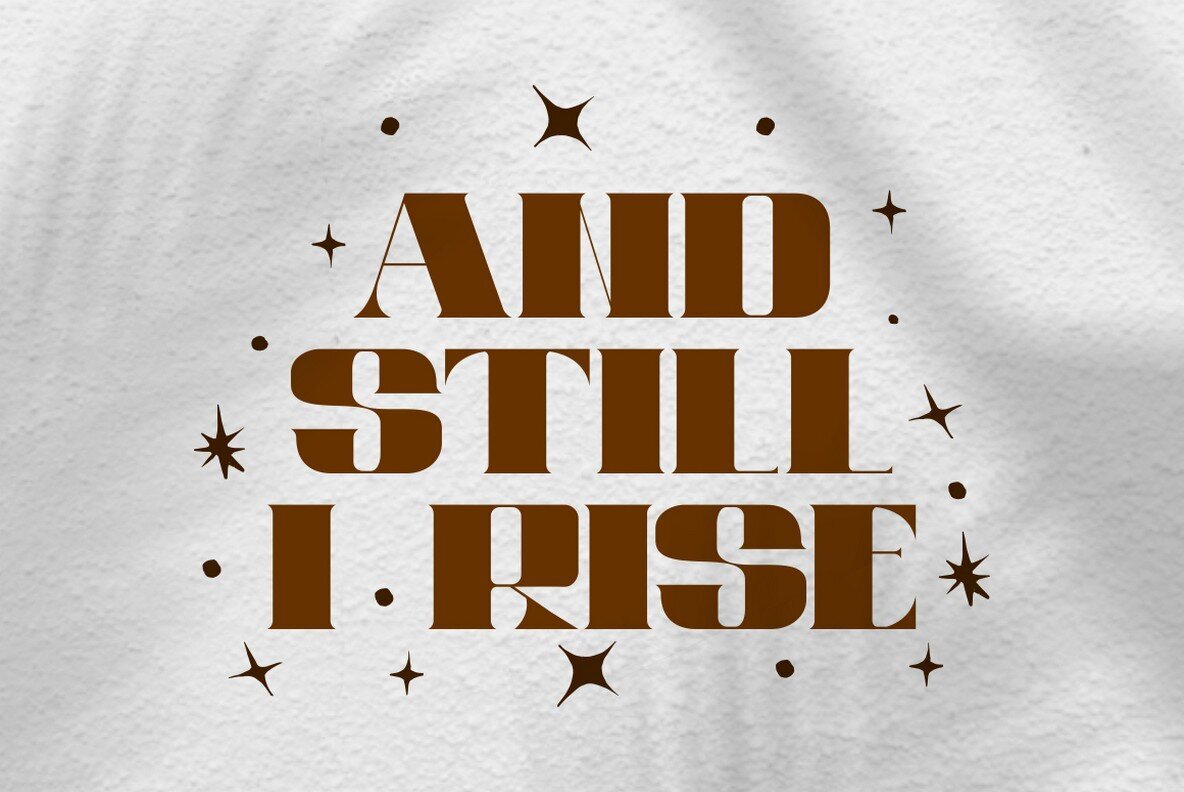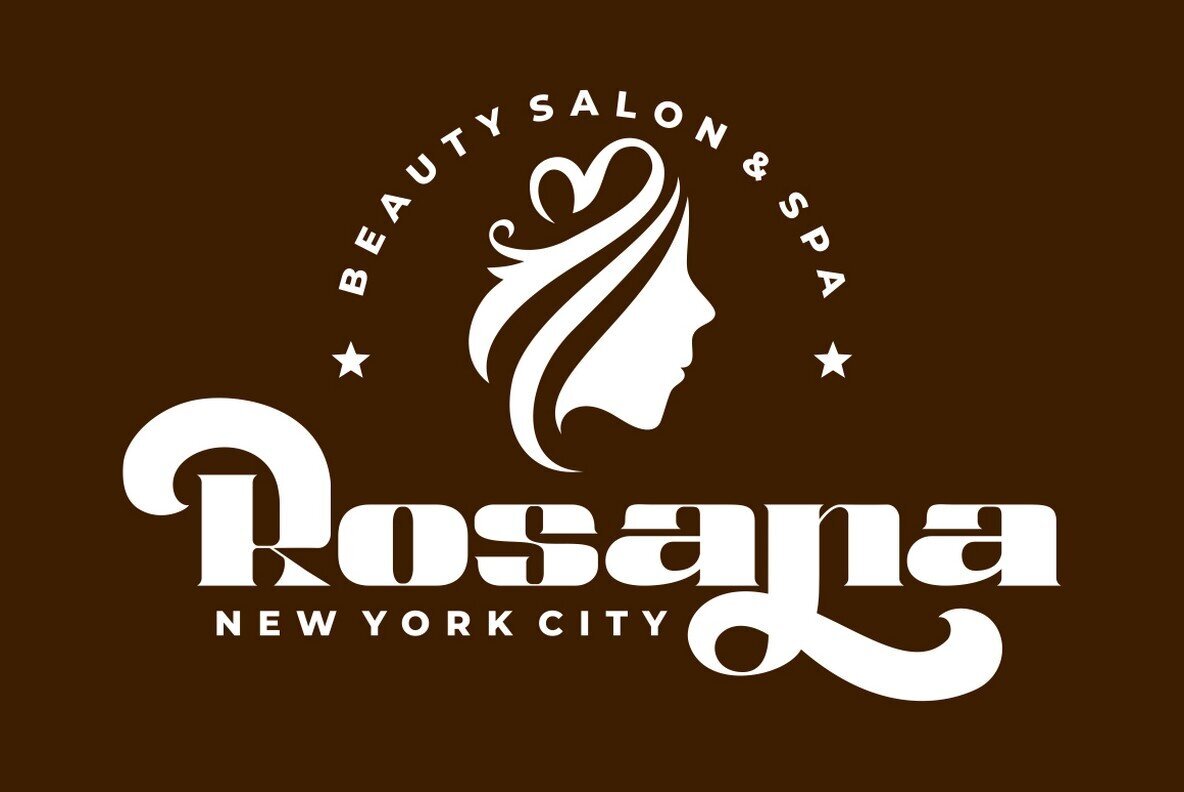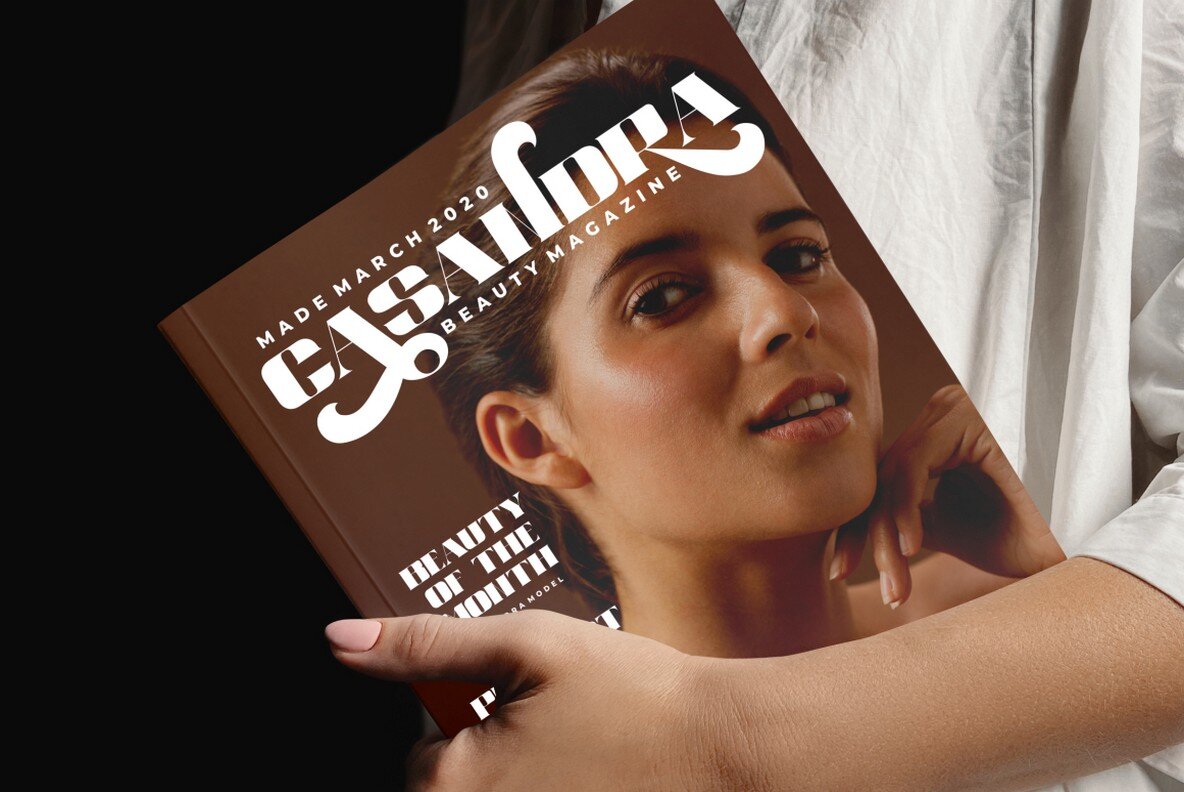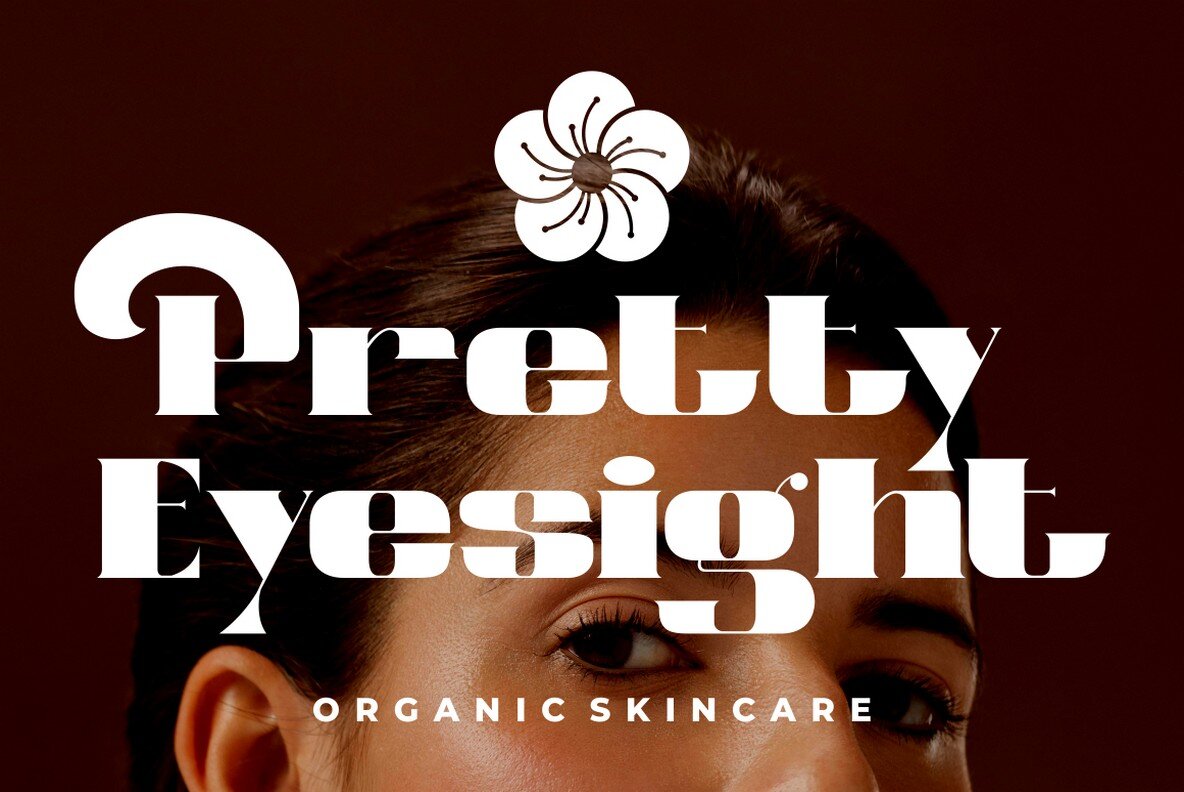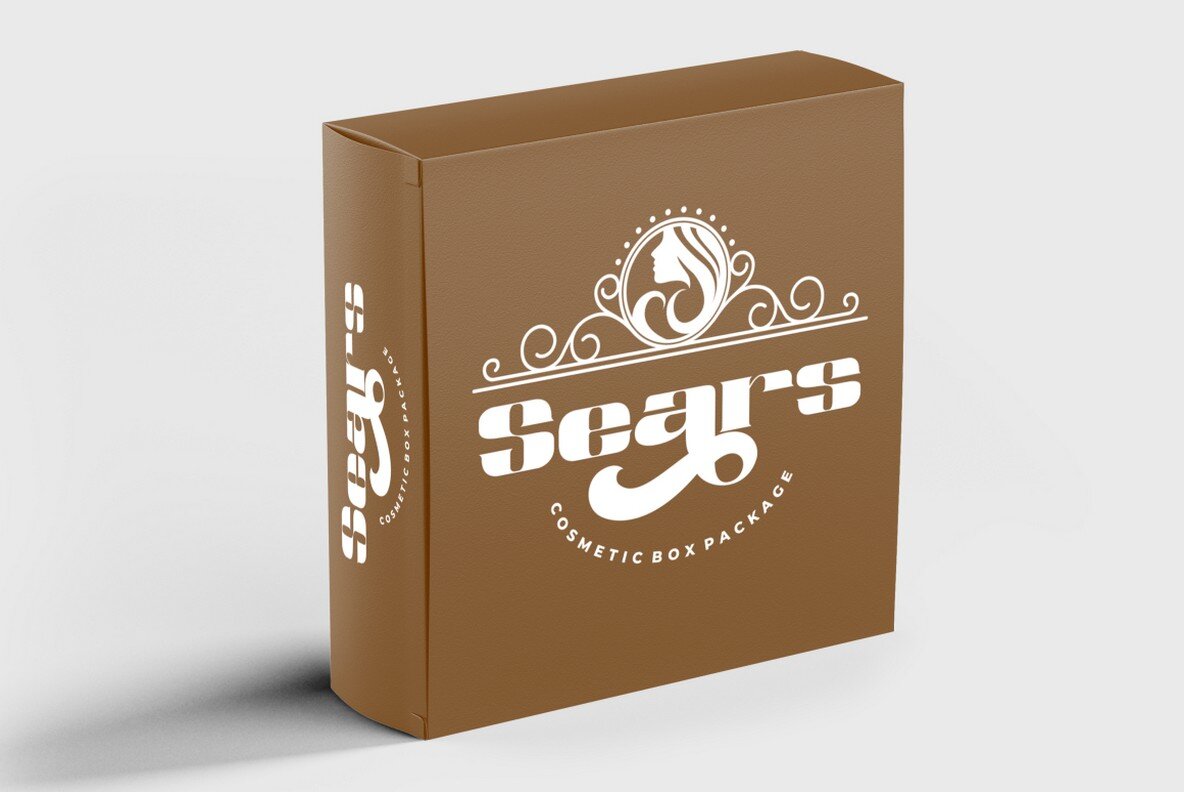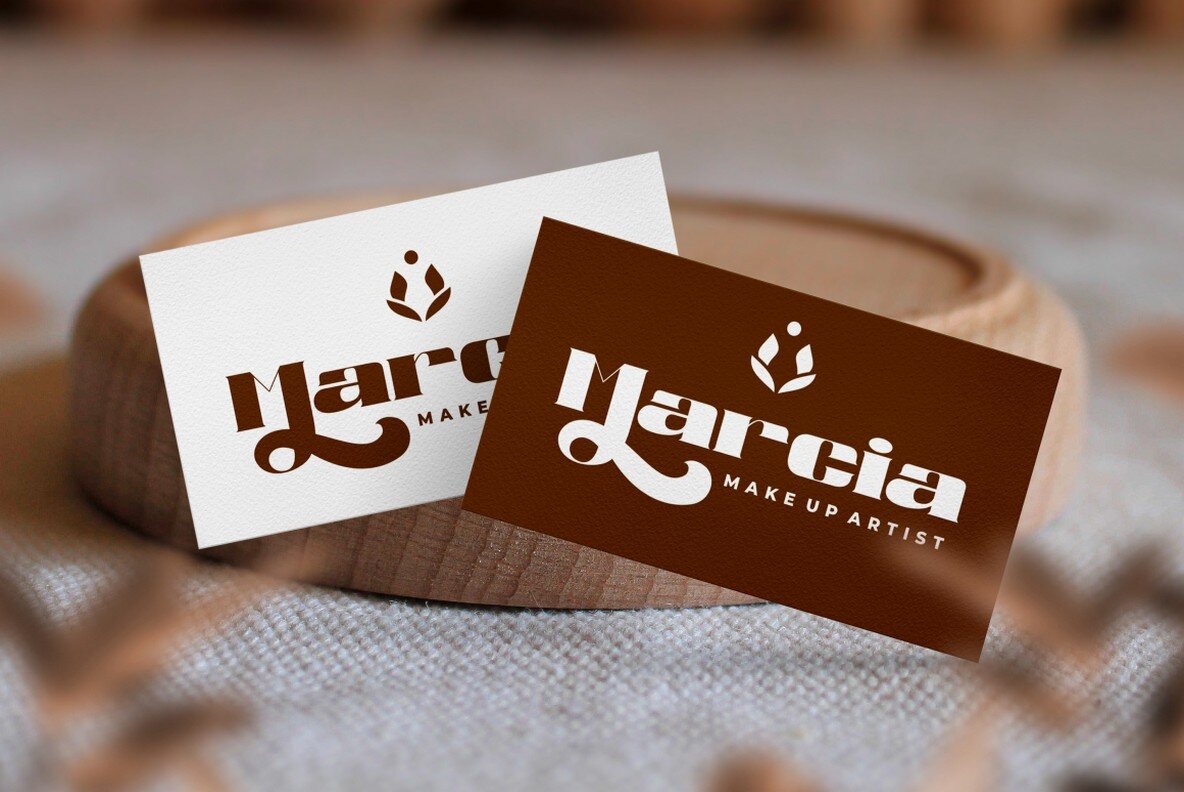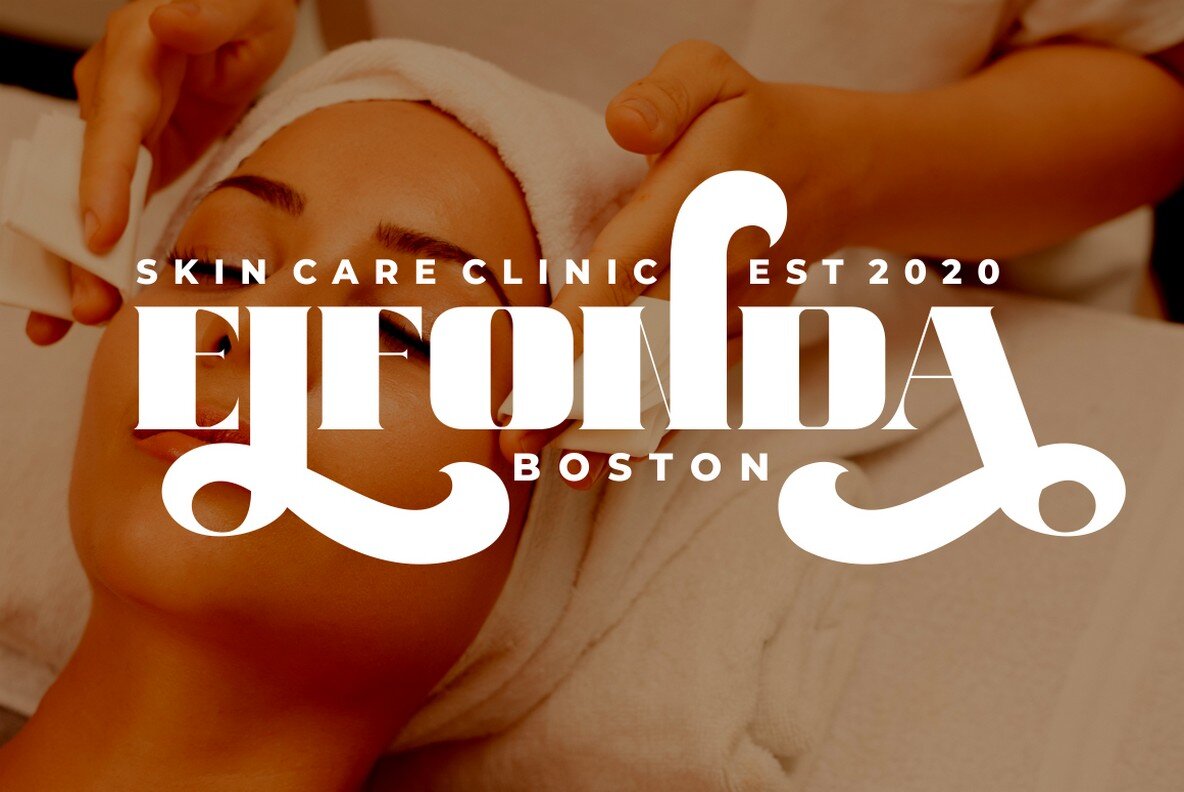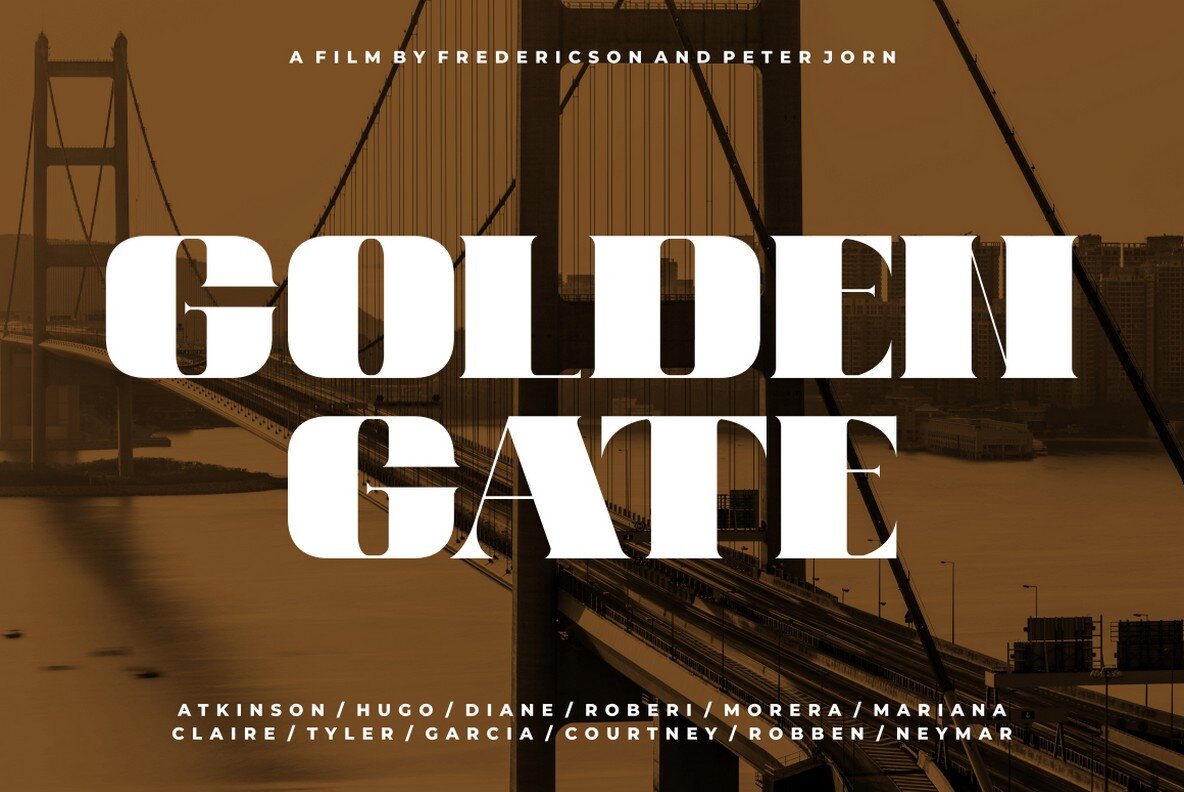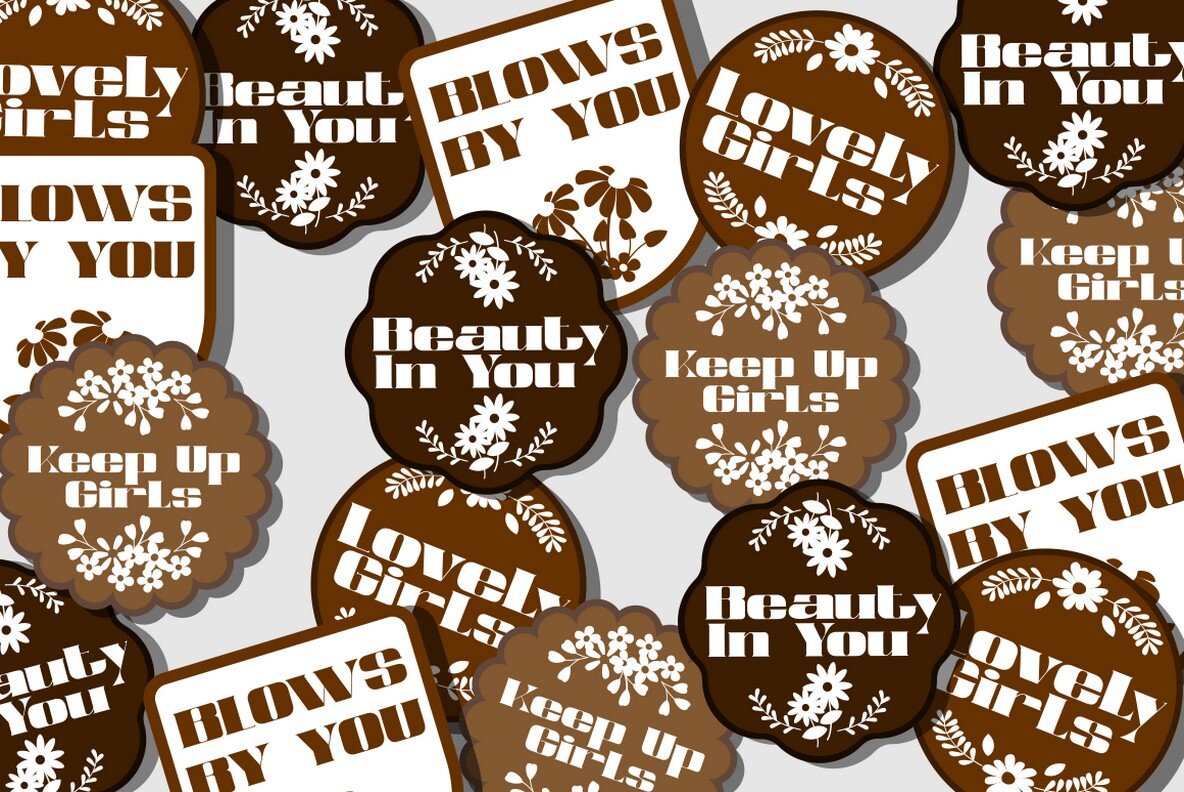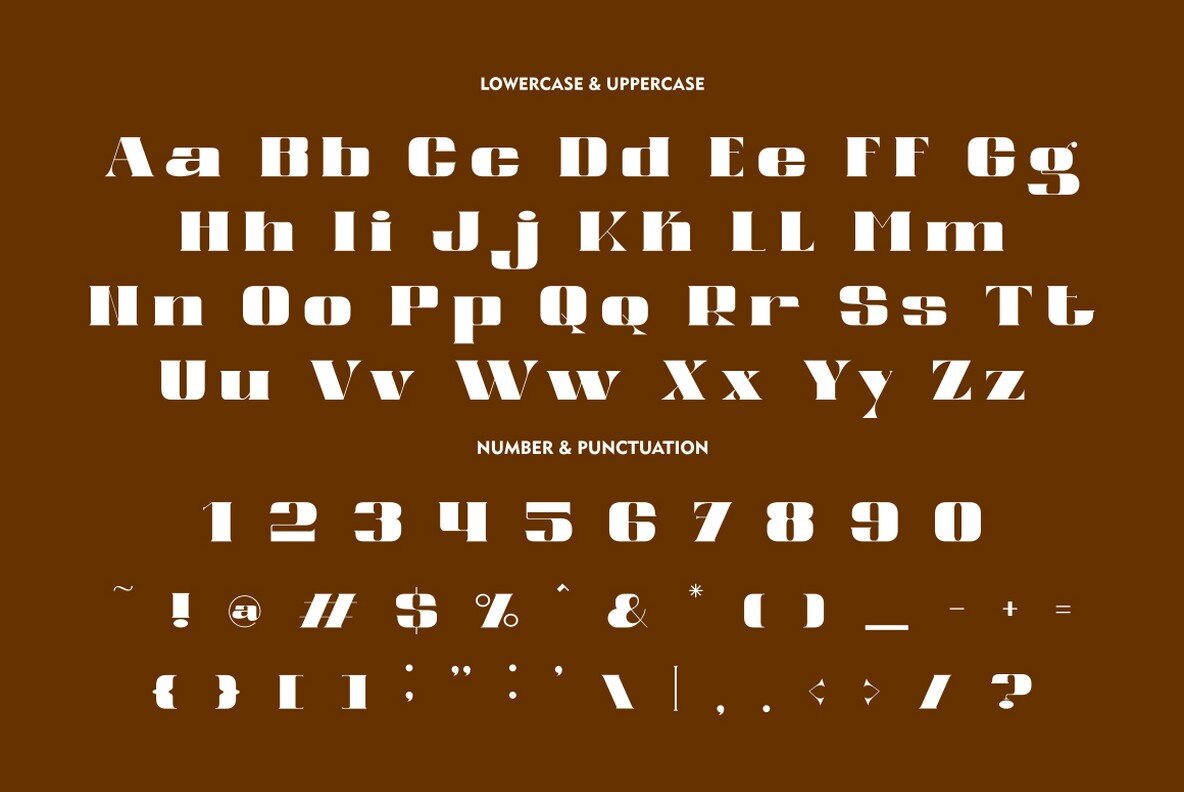
Reske Wuite Font
Reske Wuite Regular
Reske Wuite Stamp
Reske Wuite presents an elegant and refined serif typeface that serves as a versatile tool for designers who value class and sophistication. Its distinguished style is inspired by the realm of luxury typography, making it ideal for projects that require a professional touch. From headings and flyers to greeting cards and product packaging, Reske Wuite's elegance brings a unique flair to any design. Additionally, Reske Wuite's alternative characters and OpenType features provide ample opportunities for creative expression. These features are compatible with programs such as Adobe Illustrator, Adobe InDesign, Adobe Photoshop, CorelDraw, and Microsoft Word—enhancing the font's functionality for diverse design platforms.Reske Wuite: Elegant Serif for Timeless Typography